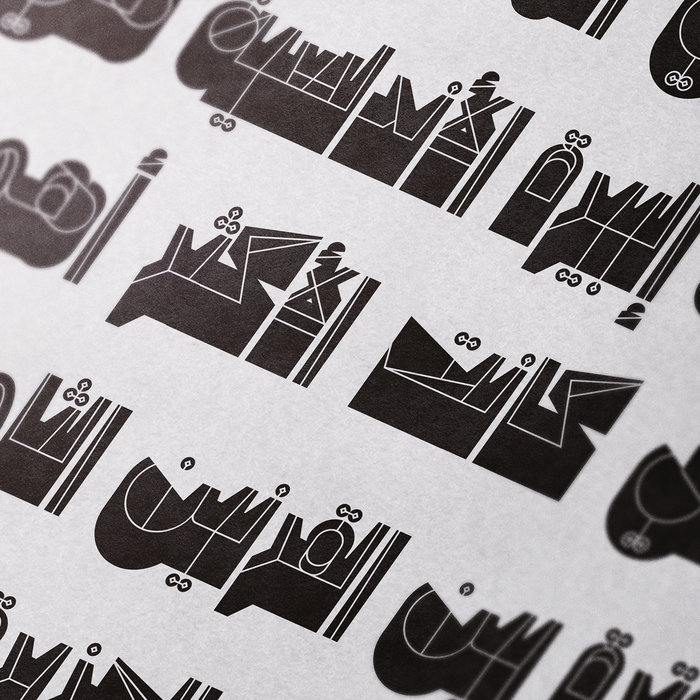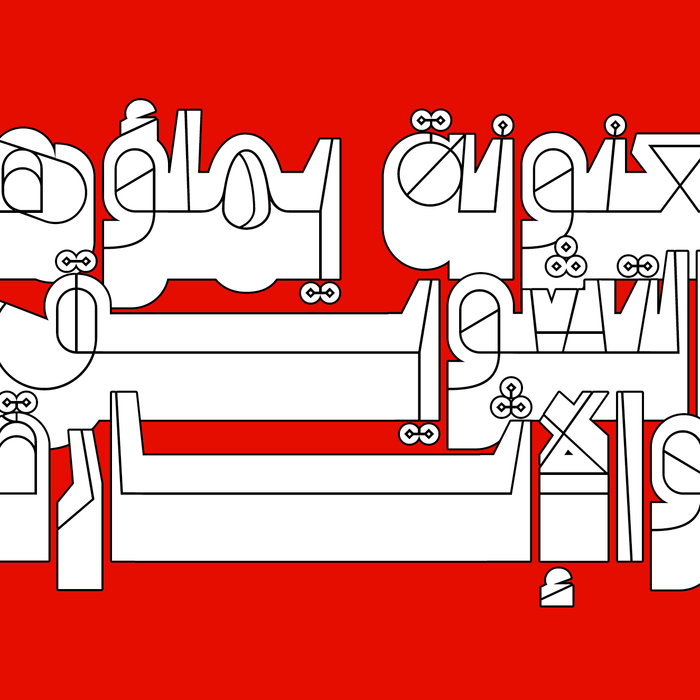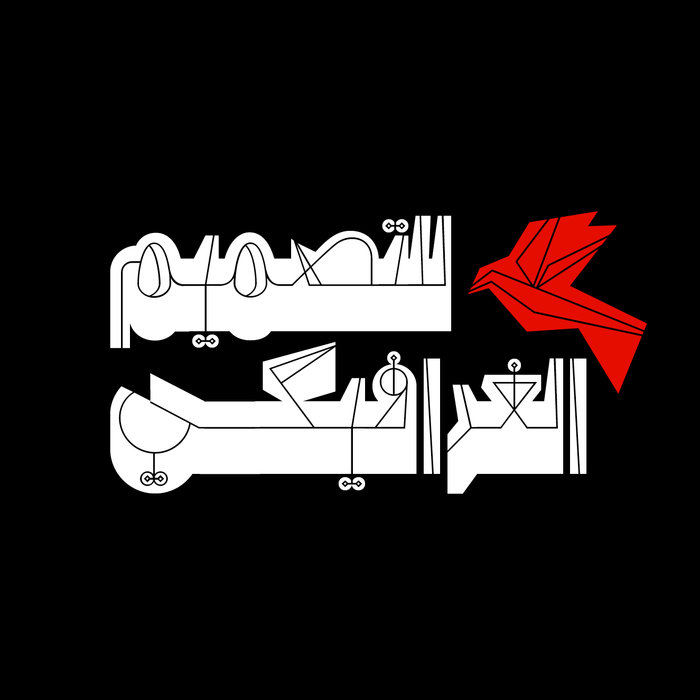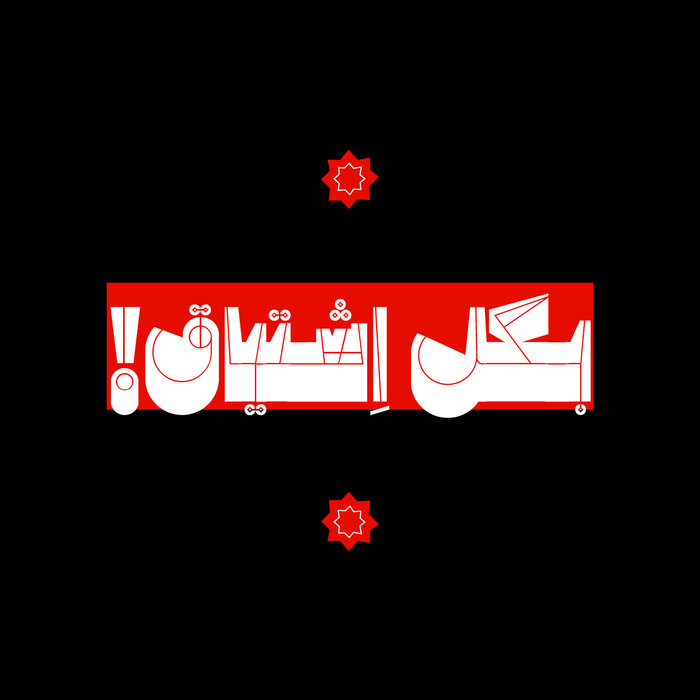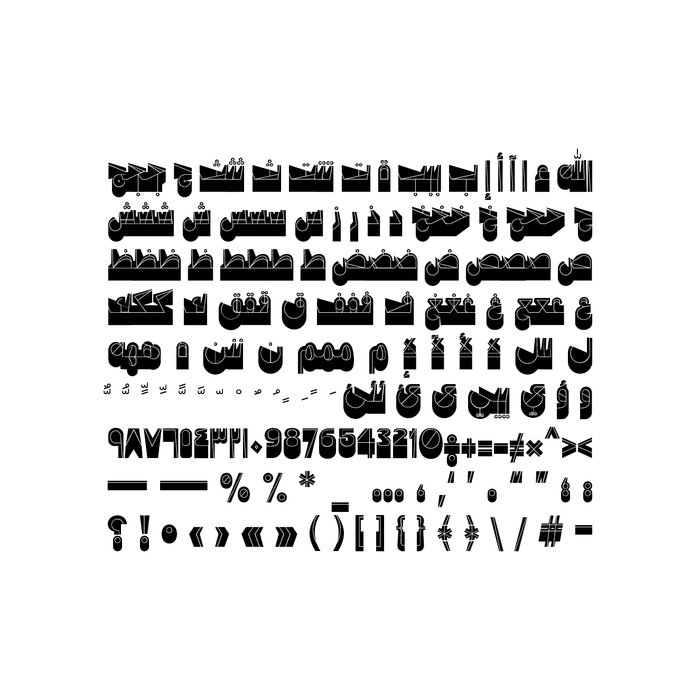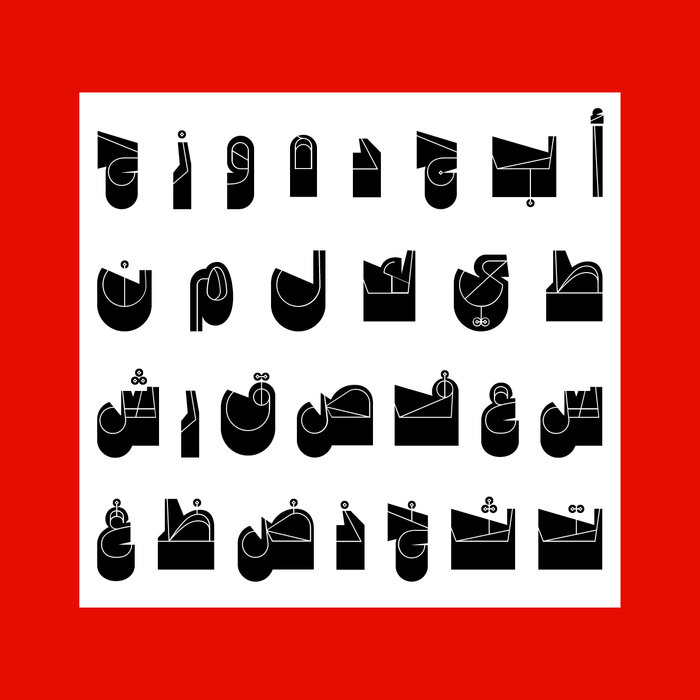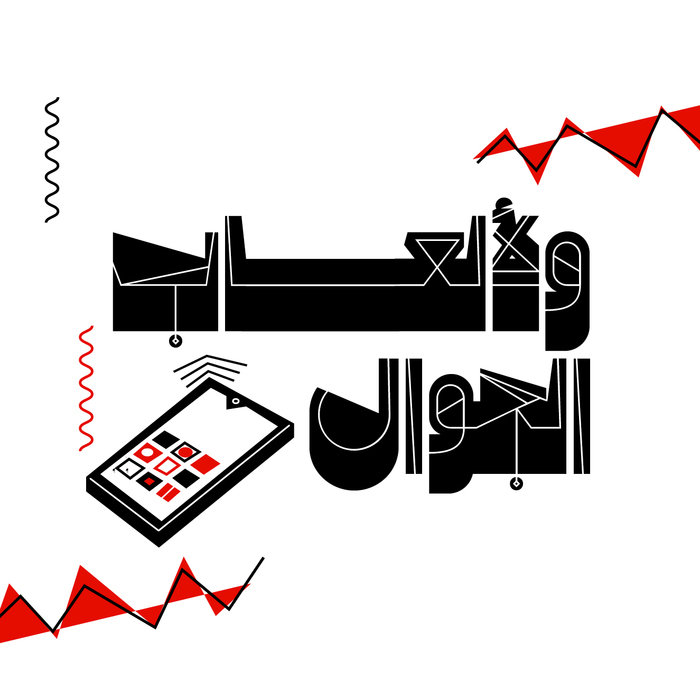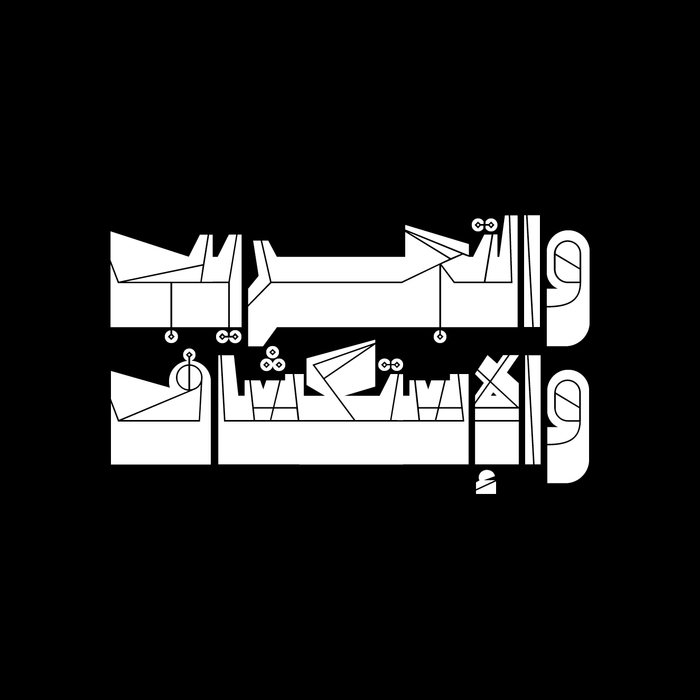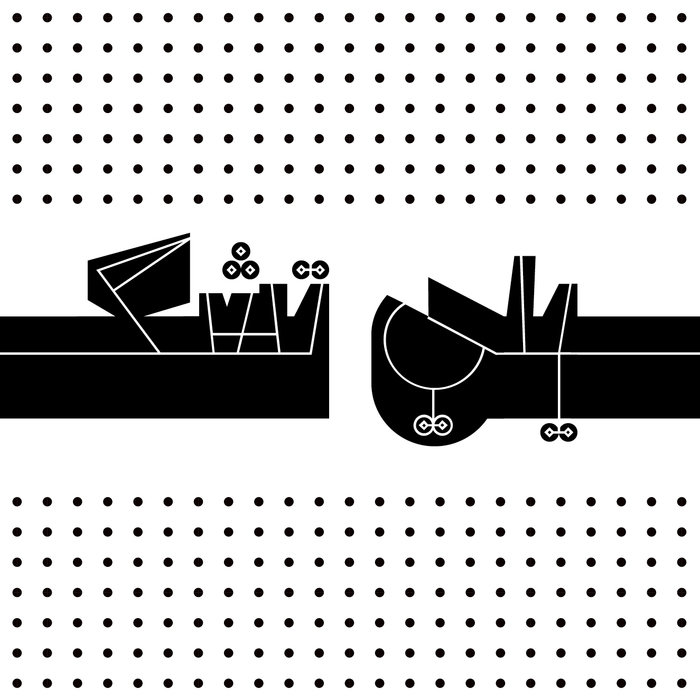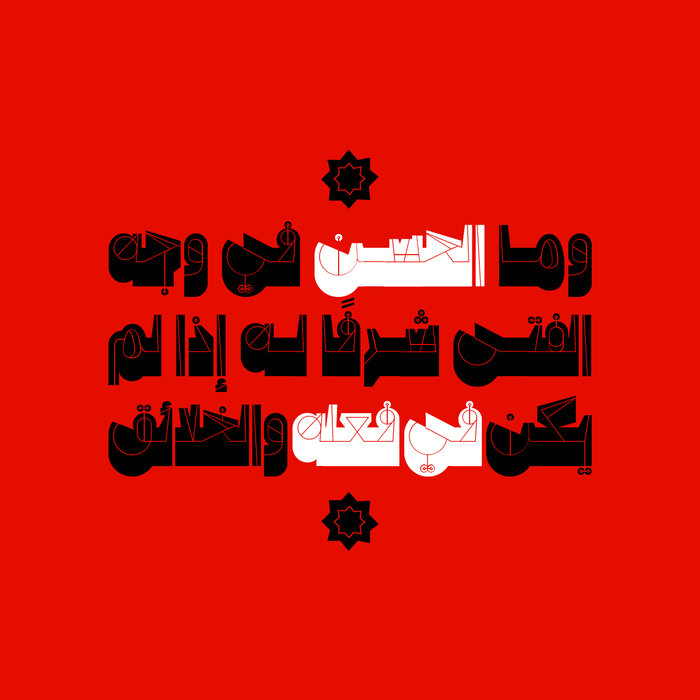
Tashweeq - Arabic Font
Tashweeq (which is the Arabic word for Interestingness) is an Arabic experimental font that features solid geometric structure combined with inner linear letterforms. Tashweeq is suitable for creative titles, branding and typographic compositions. It supports Windows, Mac and mobile apps.